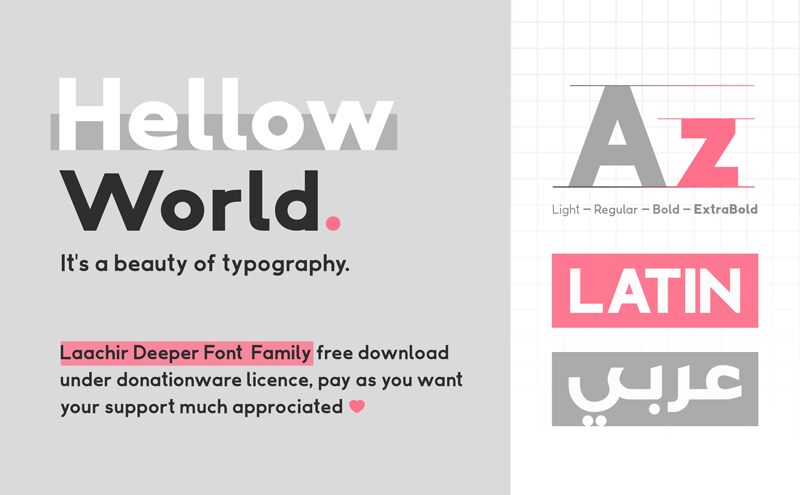
Laachir Deeper is a captivating sans serif font, designed by Laachir Deeper. Its semi-light weight and semi-expanded width make it versatile for various creative projects.
With its clean and modern aesthetic, this font is perfect for branding and logo designs, adding a touch of elegance to any business or personal website. The legibility of Laachir Deeper also makes it suitable for editorial layouts, enhancing the readability of long-form articles or magazines.
Whether used in print or digital media, this font effortlessly combines style and clarity to elevate your design projects to the next level.